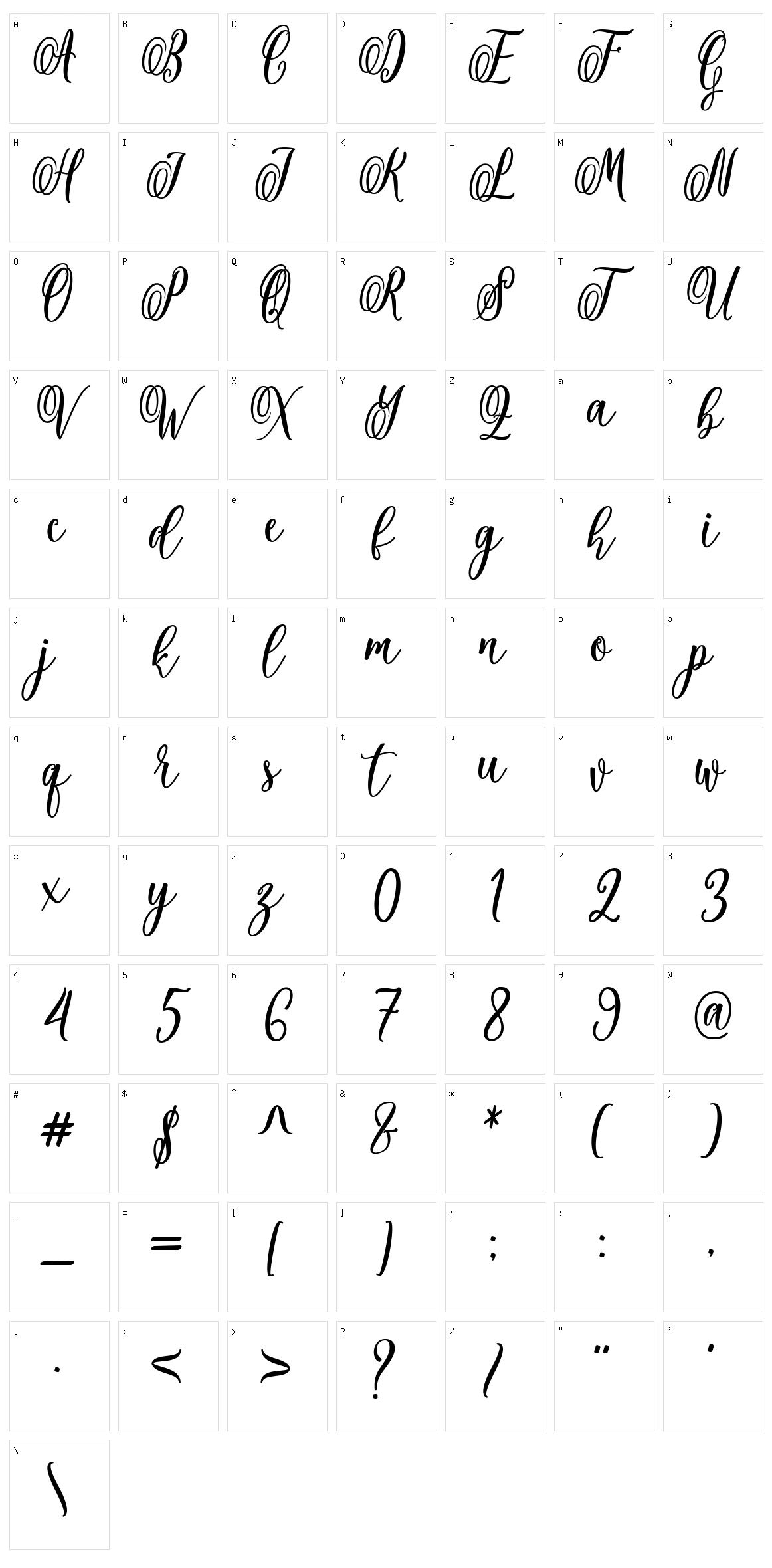
The free font Theella is carefully designed by alifirman, showcasing a thoughtful balance of creativity and usability and falls under the Script font style. When you download the ZIP file, it contains only 38.89 KB of font files, making it lightweight and quick to download. Please review the license details below to understand permitted usage and distribution rights. If license information is not available, we recommend using this font for personal projects only or contacting the author directly for commercial usage permissions.